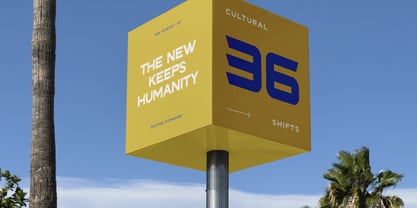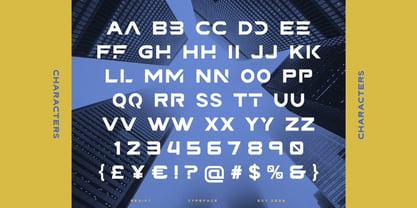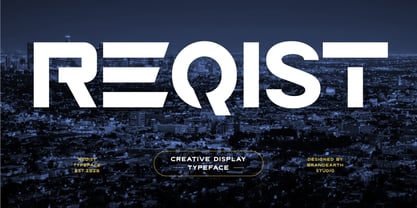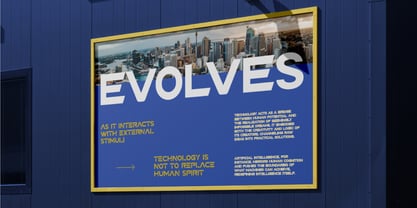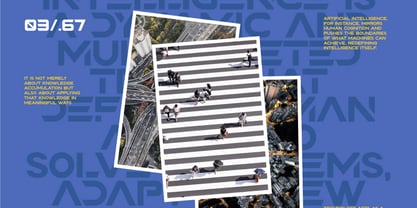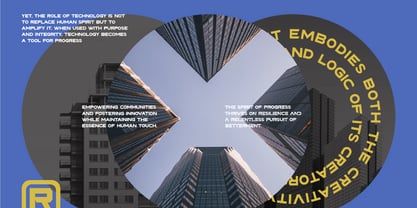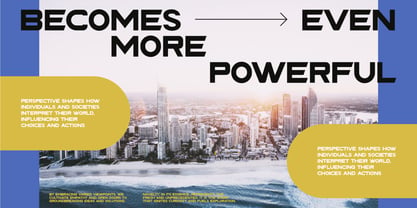
Reqist
Die Schriftfamilie Reqist wurde von Moch Rasjid Wiyono entworfen und von Brandearth veröffentlicht. Reqist enthält 1 Stile. Mehr über diese Familie
Reqist is a bold geometric display typeface built with sharp construction, modular shapes, and a futuristic visual rhythm. The set includes uppercase, lowercase, numerals, and punctuation with clean spacing and consistent weight for strong clarity at large sizes. Relevance and Use Cases is perfect for technology branding, startup identities, esports and gaming visuals, digital interfaces, UI/UX systems, posters, editorial covers, product launches, social media graphics, motion titles, and any modern project that requires a sharp, futuristic, and confident typographic voice.